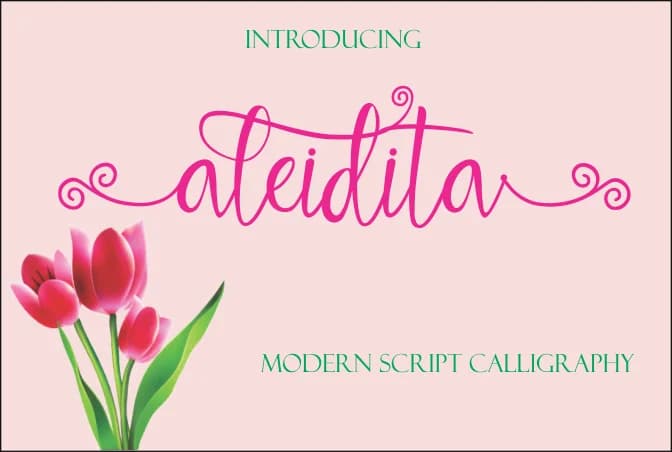
Aleidita by Jaime Rangel Castro is a modern calligraphy script that brings sophisticated elegance to contemporary design work. With flowing letterforms and refined curves, this typeface captures the handcrafted quality that designers and brands actively seek when they want to stand out from standard sans-serif alternatives.
The script excels at wedding invitation suites, where its delicate sophistication suits formal celebrations and occasion-worthy moments. Aleidita works effectively on boutique cosmetics packaging and luxury brand identity work, where visual refinement communicates quality and intentionality to discerning audiences. Designers find strong applications in upscale greeting card design and artisanal product labeling, where the human touch of calligraphy adds distinctive character without overwhelming legibility. The typeface respects readability while maintaining its artistic appeal, making it suitable for various design contexts and layout approaches.
Whether developing wedding stationery systems, creating high-end product packaging, or designing refined social media graphics, Aleidita provides the aesthetic that signals quality and thoughtfulness to your audience. Its balanced approach to ornamentation works equally well in display-heavy layouts and more conservative applications where elegance requires restraint and sophistication. Find Aleidita on Creative Fabrica and bring this modern calligraphy script to your next design project.
Aleidita Font is a script font that shines as a display or heading face. Pair it with a clean sans-serif or serif font for body text β the contrast creates a clear hierarchy while the two styles stay balanced and easy to read.